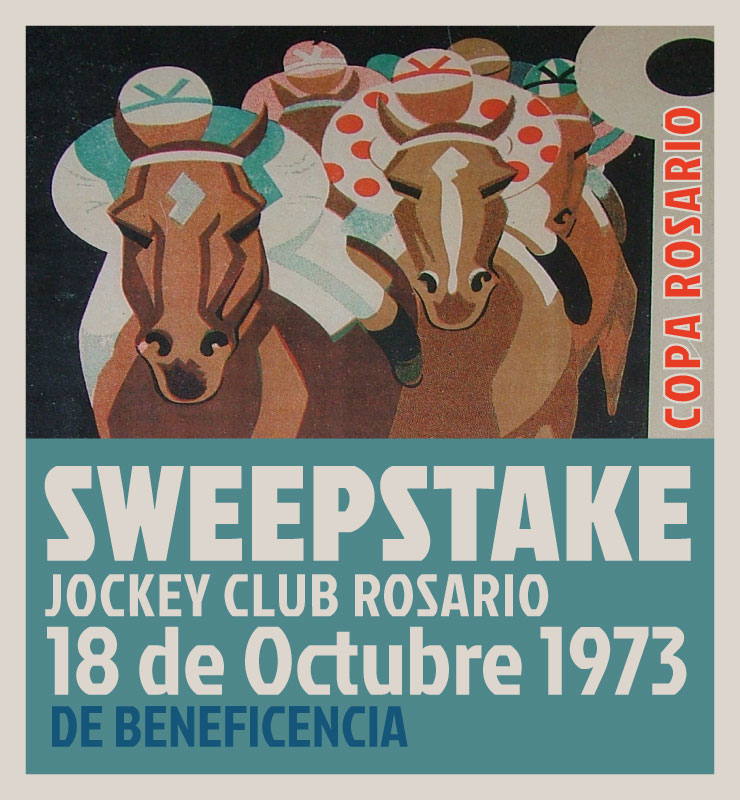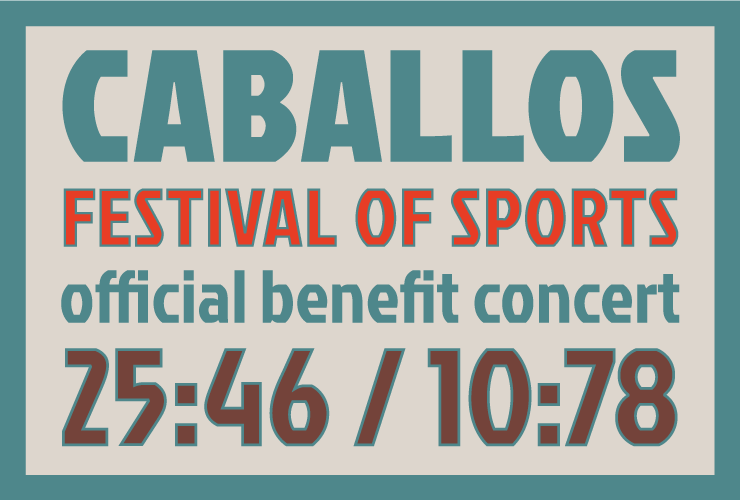
Jockey
Google comissioned the design of a new type family for it's webfonts project. Jockey is based on the lettering by an unknown Argentine artist who designed posters for horse race tracks in the 1930's. Out of a few upper case letterforms the TypeTogether team developed a full typeface that is now available for free at Google Webfonts. So far only a Regular weight is available, but the Bold is planned to be released sometime next year.